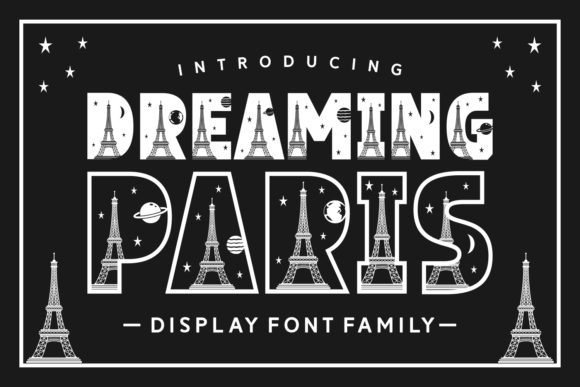
Unleash your creativity with Dreaming Paris Font, the Parisian-chic decorative typeface that exudes bold confidence and ensures your designs stand out! Experience the fusion of elegance and exuberance as your projects radiate a unique charm. Capture the essence of Parisian romance and infuse it into your designs. Make a statement with Dreaming Paris Font, the key to unlocking your creative genius!
With Dreaming Paris Font, you'll embark on a captivating journey through the enchanting streets of Paris, where beauty and sophistication converge. Discover the allure of this decorative masterpiece, meticulously crafted to elevate your designs to new heights. Let your imagination soar as you create logotypes, branding, and marketing materials that radiate elegance and leave a lasting impression.
Dare to be bold and let your creativity shine with Dreaming Paris Font. Its distinct character and versatile style make it the perfect choice for expressing your unique vision. Whether you're designing posters, invitations, packaging, or social media graphics, Dreaming Paris Font will add a touch of Parisian flair and make your designs shine.
Immerse yourself in the world of Dreaming Paris Font and watch your designs transform into exquisite works of art. Its carefully crafted characters exude confidence and passion, captivating your audience and leaving them in awe. Step into the spotlight with Dreaming Paris Font and unlock your creative potential today!